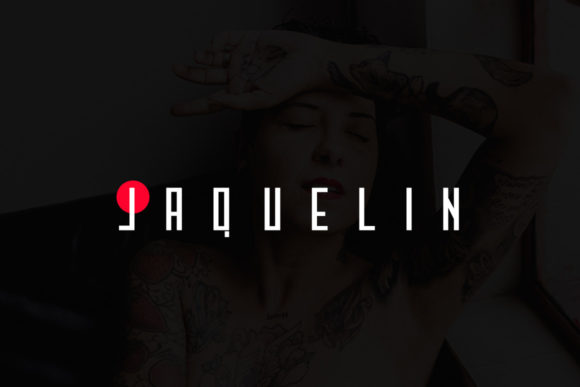
In the realm of design, the choice of font is akin to the stroke of a master artist, capable of transforming a simple text into a captivating symphony of visual delight. Jaquelin, a stunning display font from the creative genius at BeeType, embodies this transformative power, beckoning you to elevate your designs to unprecedented heights.
With its clean lines, sharp edges, and undeniable elegance, Jaquelin is the perfect font for leaving an indelible mark on your audience. Picture your website headlines, social media posts, and marketing materials adorned with the bold and confident strokes of Jaquelin. Watch as your words leap off the screen, commanding attention and igniting imaginations.
Unleash your creativity and explore the boundless possibilities that Jaquelin holds. This versatile font effortlessly adapts to a myriad of design styles, from sleek and modern to vintage and whimsical. Let your artistic vision soar as you craft logos that exude professionalism, posters that pop with vibrancy, and invitations that ooze sophistication.
Step into the spotlight with Jaquelin as your trusted design companion. Let its bold strokes and elegant curves elevate your projects, leaving an unforgettable impact that lingers in the minds of your audience. Embrace the transformative power of Jaquelin and embark on a creative journey that knows no limits.